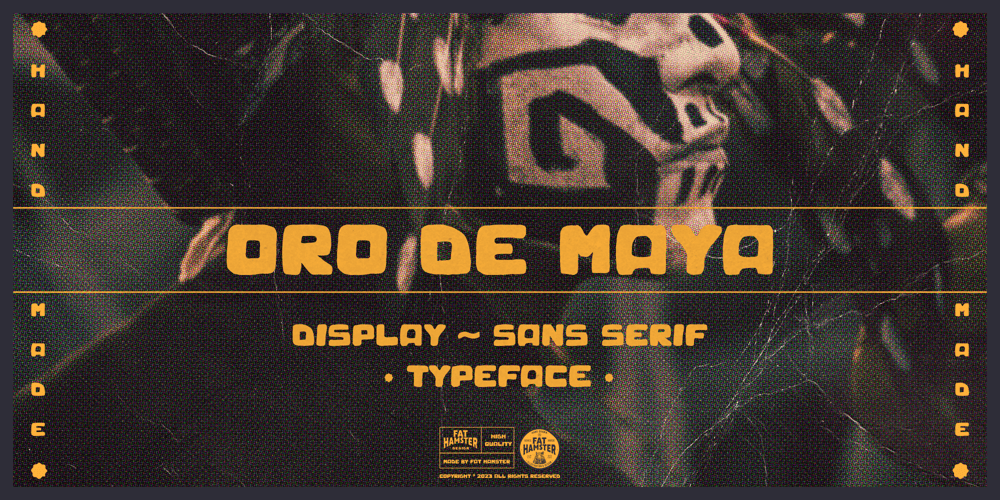
Oro De Maya Font Family was designed by Alesia Kutsian, Aliaksei Hvozdzeu and published by Fat Hamster. Oro De Maya contains 1 styles and family package options. Oro de Maya is a hand drawn ancient sans serif / display typeface. Oro de Maya font was inspired by the Maya civilization culture, their marvelous art, architecture and glyphs. This fantastic ancient font has a bold character.